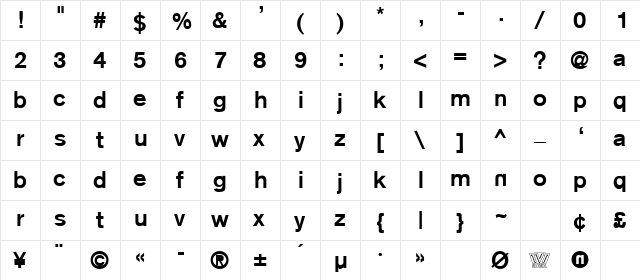
N Regular
Design Context for N Typeface
N offers clean, dependable letterforms without strong stylistic allegiance, making it a practical choice for designers who need flexibility.